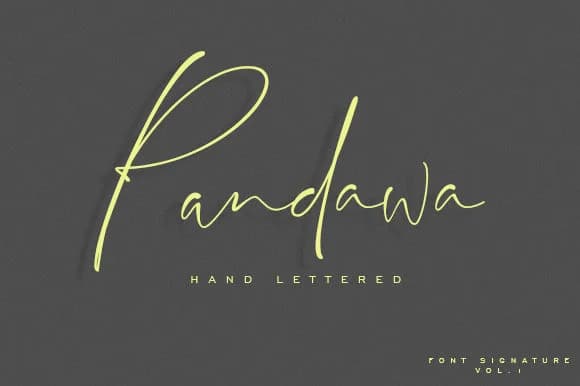
You're designing a bride's invitation suite, and you need letters that feel handwritten and personal without the stiffness of overly formal script. Pandawa Font from FontCastle delivers exactly that kind of light, flowing handwritten quality that reads authentic rather than digital. The script works beautifully for wedding invitation suites, hand-lettered social media graphics, personalized stationery, custom branding projects, and anywhere you're building on that genuine handwritten aesthetic.
This font really shines in greeting card layouts, boutique product label design, and DIY craft signage where the handwritten character sets the tone. The letterforms have enough refinement to work in professional contexts while keeping that natural, unforced quality that clients actually want. Because the weight is light and open, the font reads cleanly even at smaller point sizes, making it useful for both large display headlines and more detailed, type-heavy layout work where legibility matters.
You'll find Pandawa particularly effective for custom wedding materials, e-commerce packaging labels, and any project where authenticity beats polish. The light weight maintains character and readability whether you're setting type large or fitting it into a tighter space. Get Pandawa Font on Creative Fabrica and add this handwritten script to your working collection for those projects that demand genuine, human-drawn letterforms.
- Elegant, Flowing, Pandawa Script
Pandawa Font is a script font that shines as a display or heading face. Pair it with a clean sans-serif or serif font for body text β the contrast creates a clear hierarchy while the two styles stay balanced and easy to read.